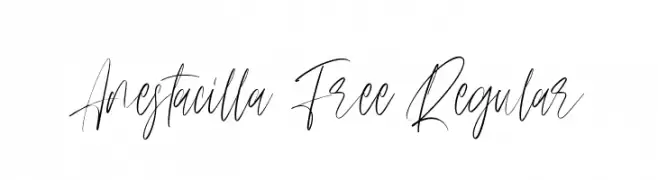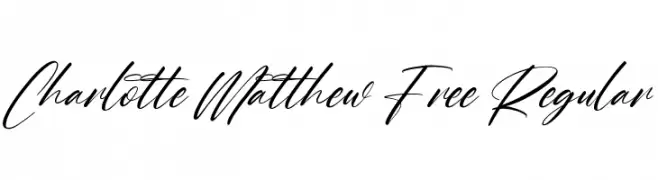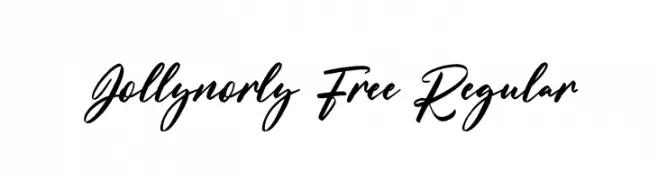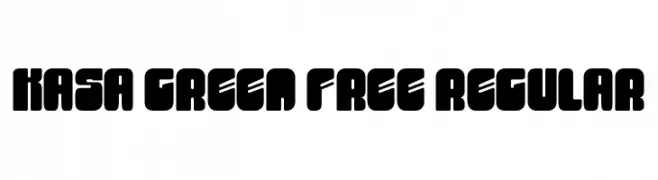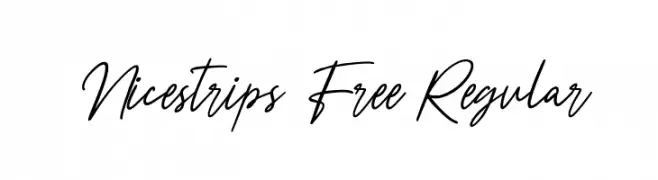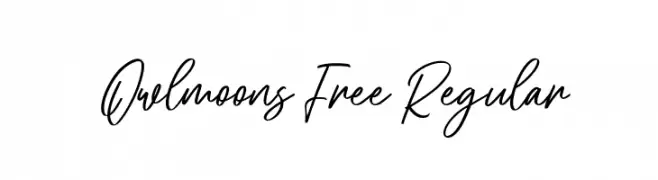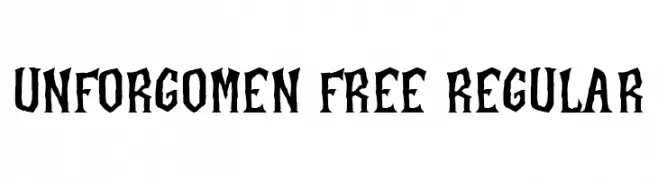
A bold, rounded, and modern font with a playful and approachable style.
A bold, gothic-inspired font with sharp, angular edges and a distressed look.
A flowing, cursive script font with elegant, connected letters and medium contrast.
A dynamic, cursive script font with fluid strokes and artistic flair.
An elegant, cursive font with flowing, intricate characters and delicate swashes.
A sophisticated and elegant script font with flowing, cursive strokes.
A flowing, elegant script font with medium contrast and interconnected letters.
A lively, cursive font with bold, expressive strokes and a natural handwriting style.
A flowing, elegant handwritten font with smooth, continuous strokes.
A lively, cursive script font with elegant, flowing letters and smooth strokes.